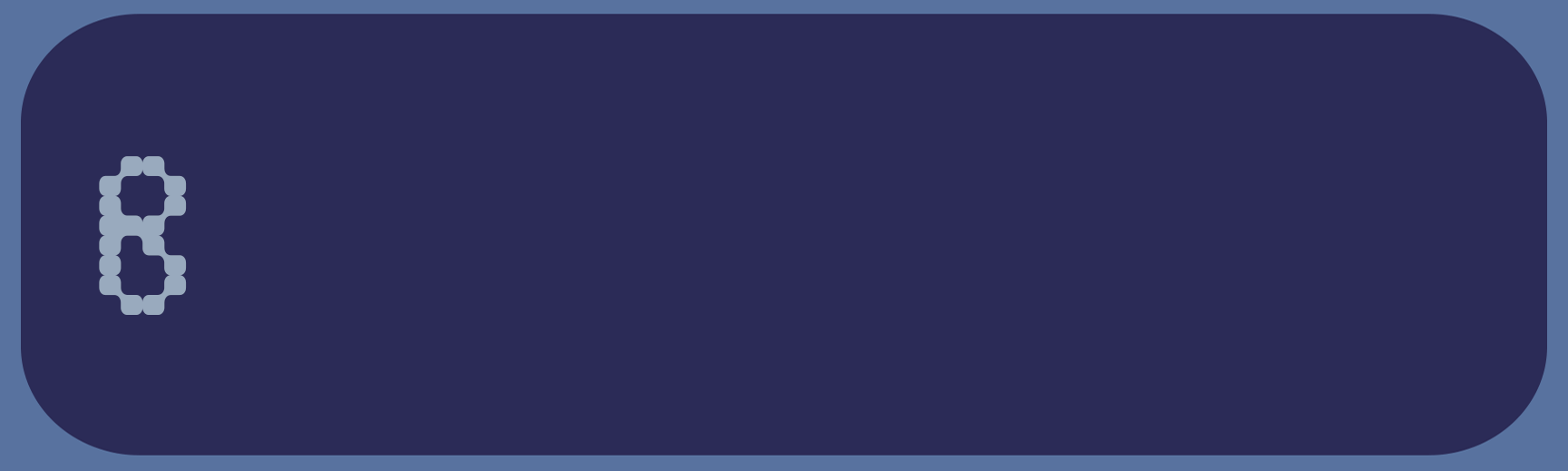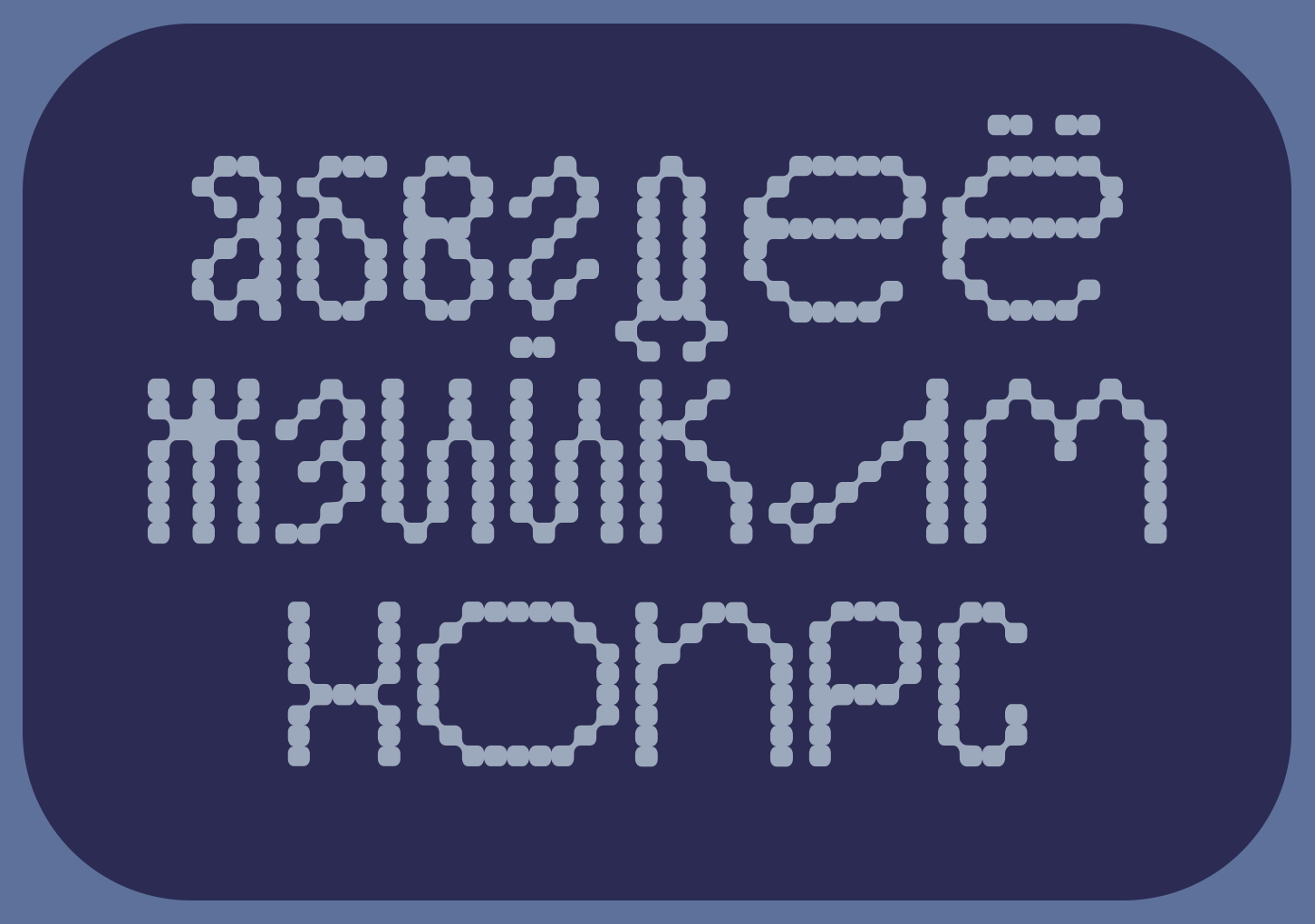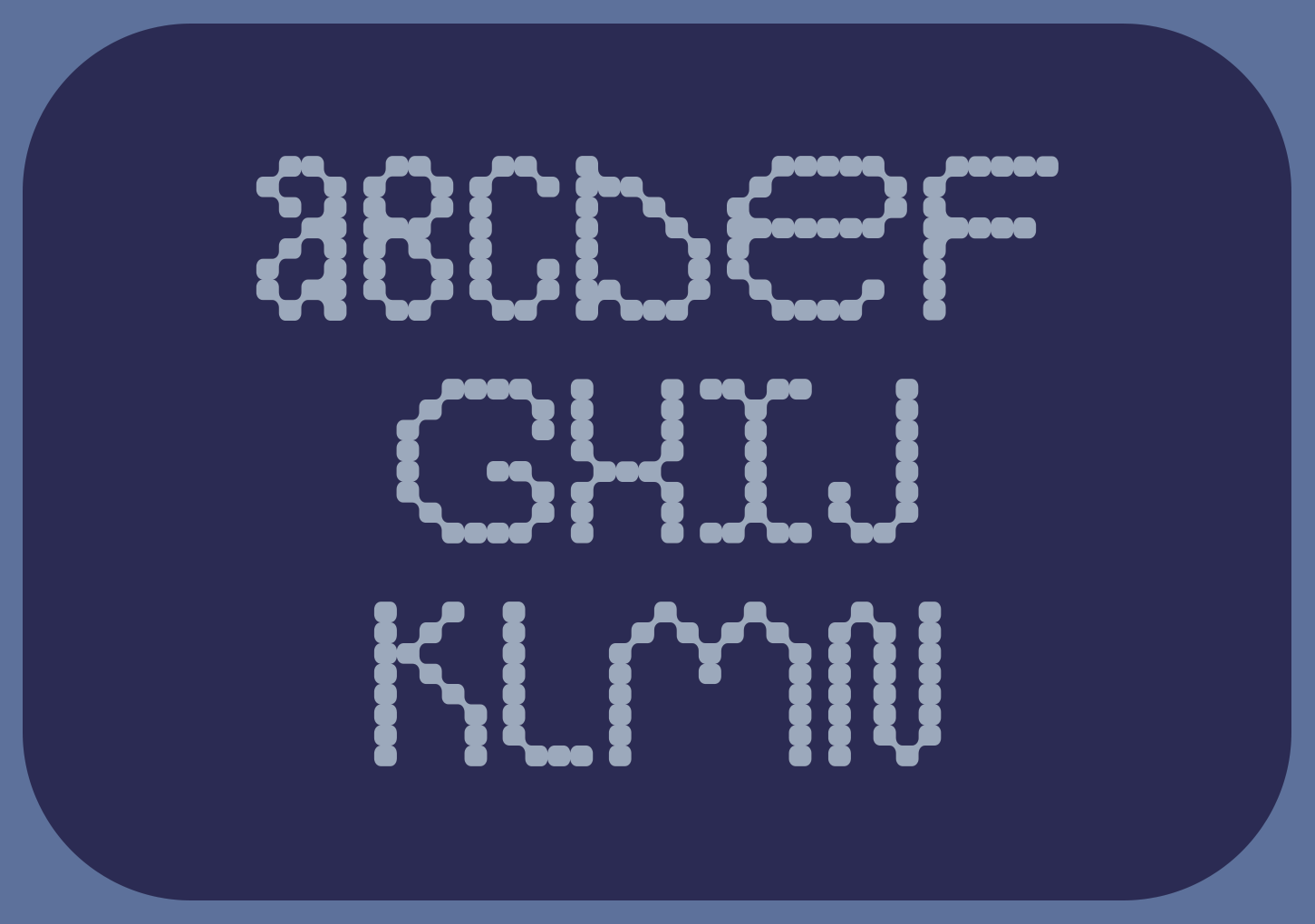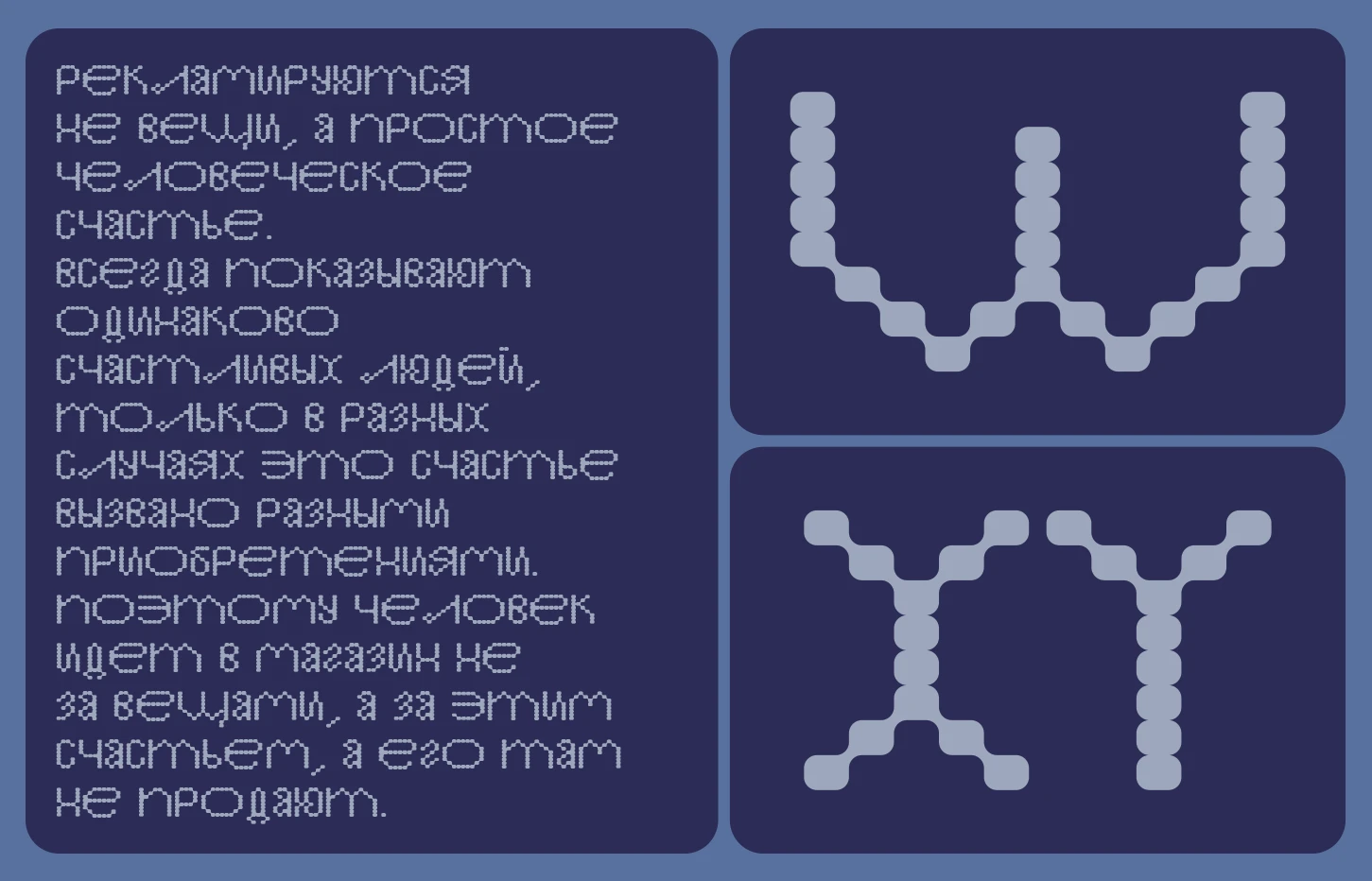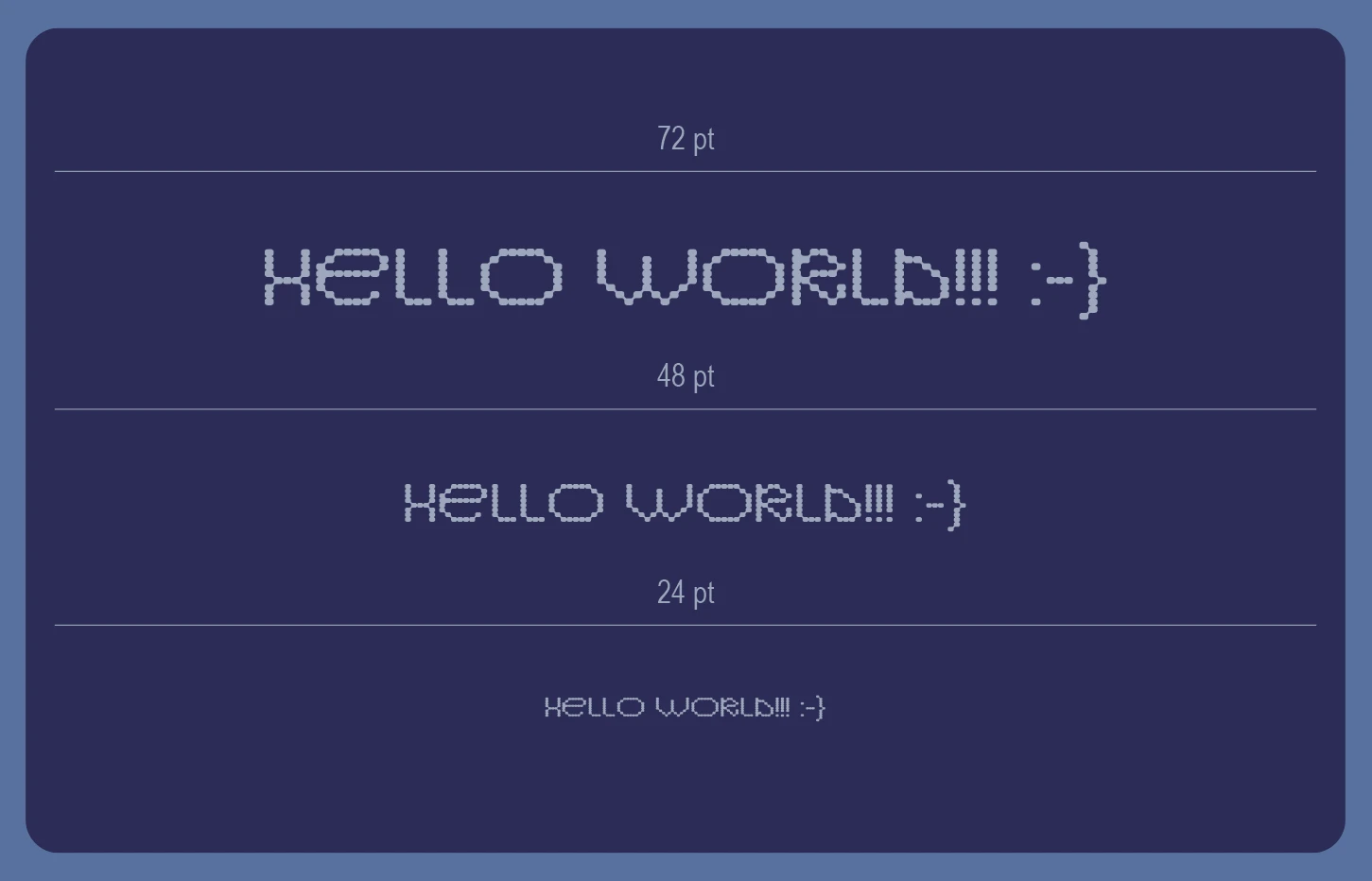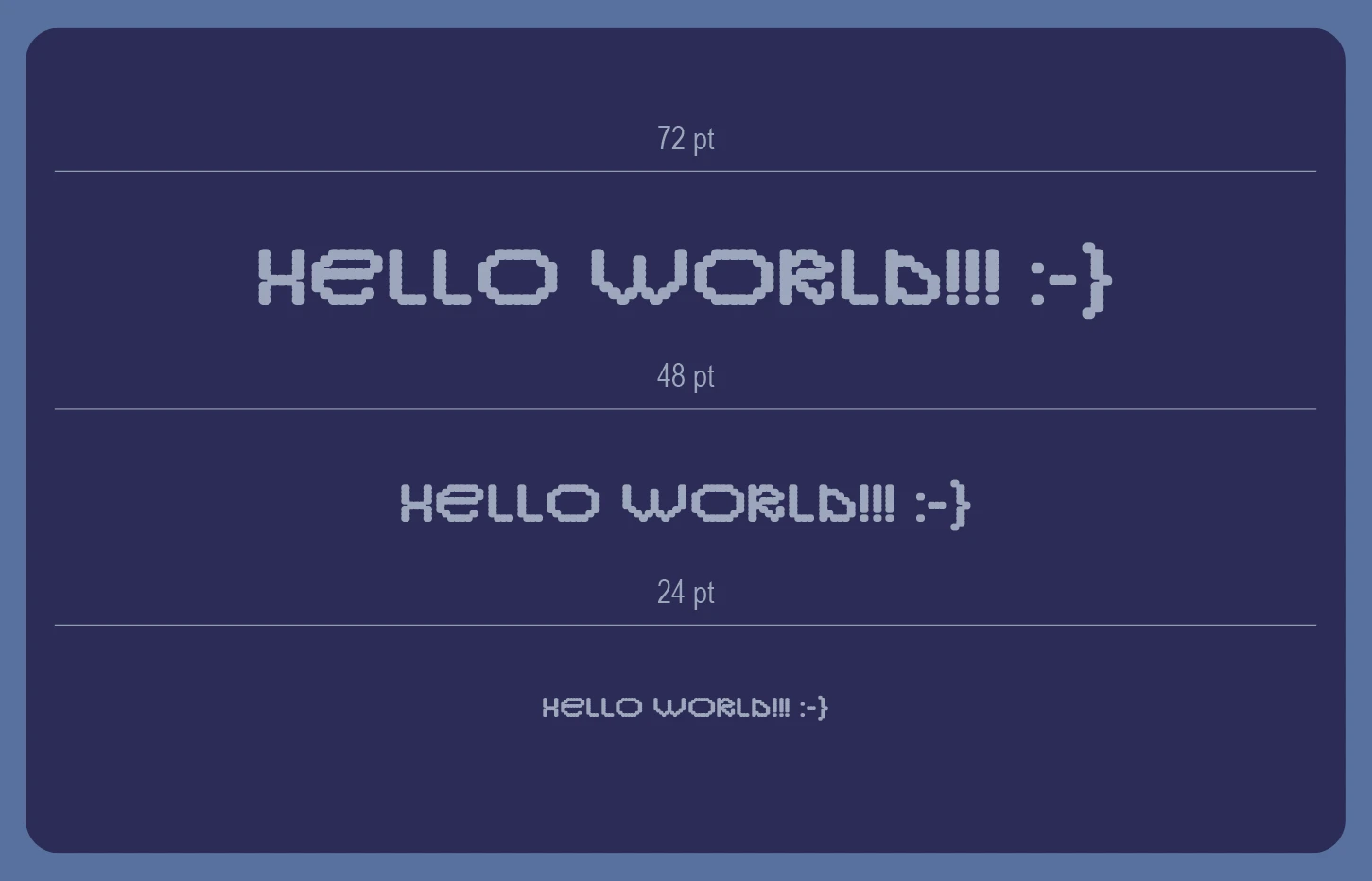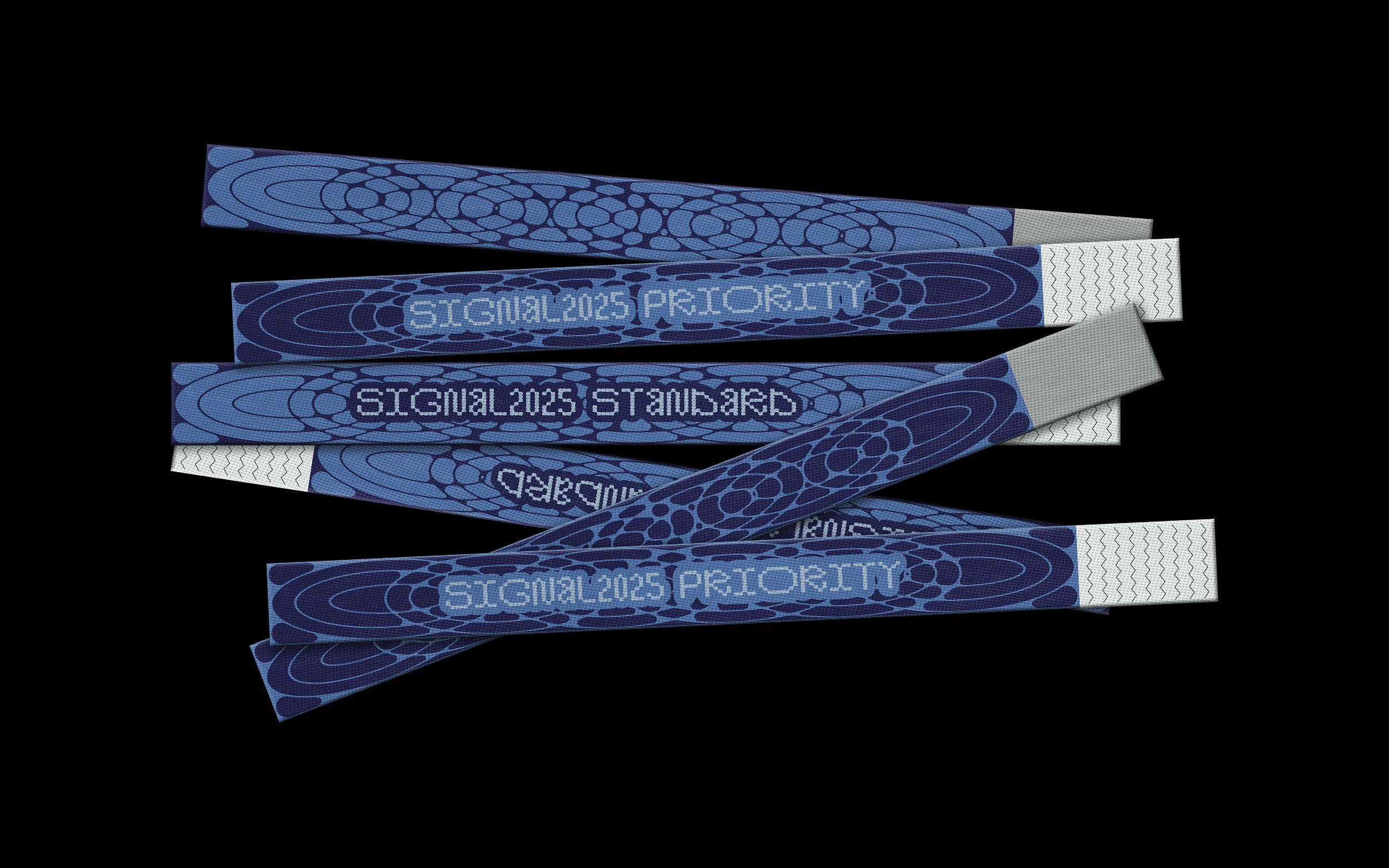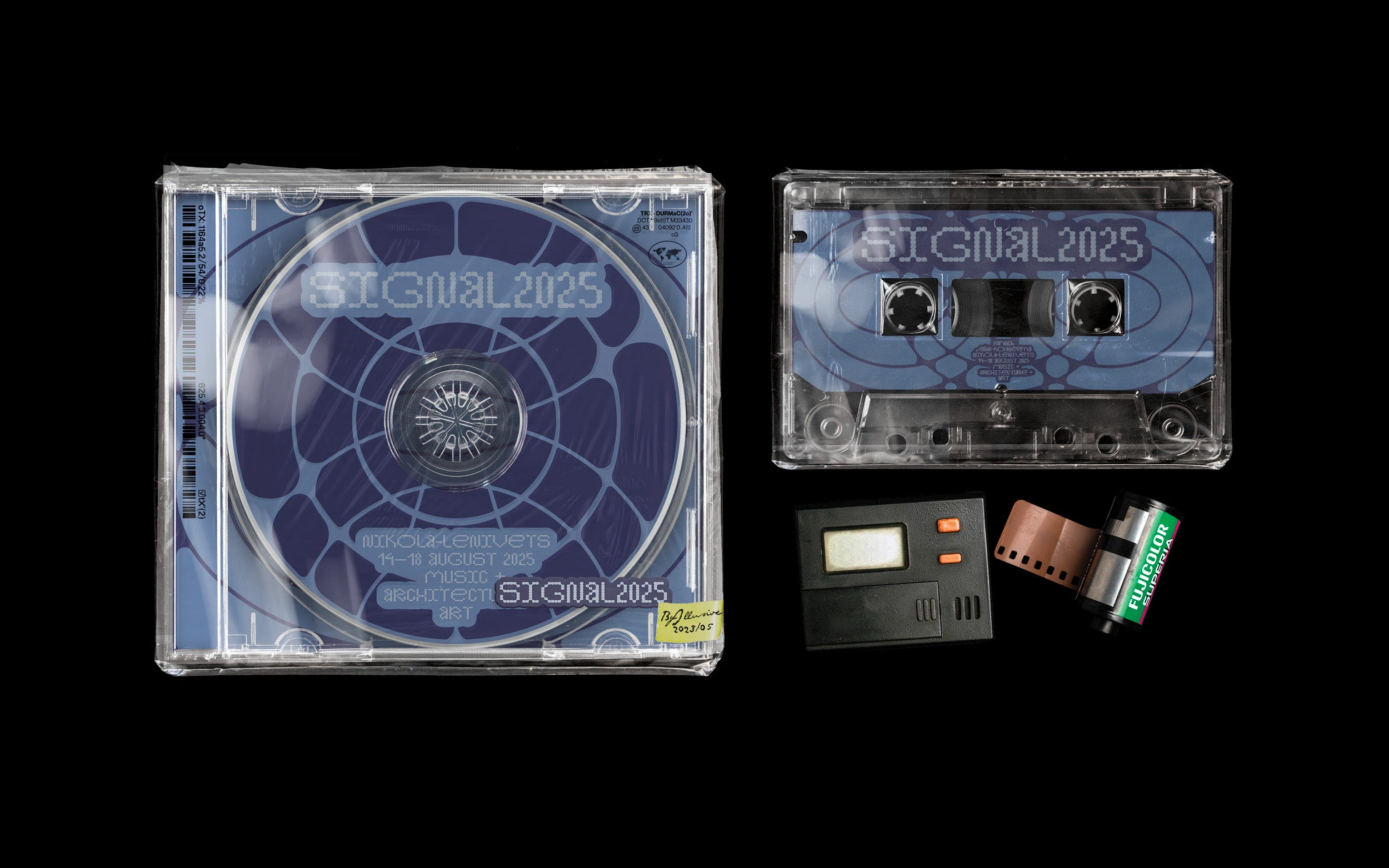
Bulbform typeface
BULBFORM TYPEFACE
Bulbform is a versatile, experimental, variable-width font in which letters are arranged in a grid, reminiscent of LED bulbs in running lines.
The font contains Latin and Cyrillic characters, numbers and signs.